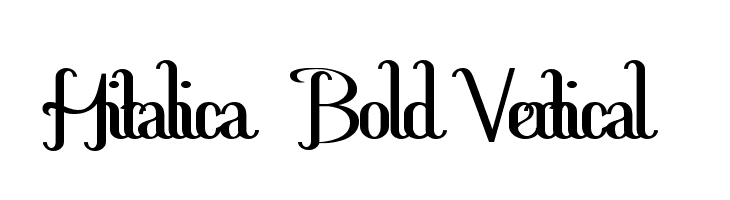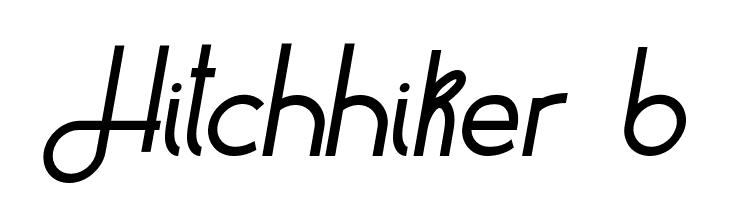
A modern-retro font with playful uppercase and bold, rounded lowercase letters.
A delicate, handwritten font with a whimsical and flowing style.
A bold, hand-drawn font with a playful and dynamic style.
An elegant, flowing script font with smooth, cursive strokes.
A bold, angular font with a modern and edgy style.
A playful, casual handwritten font with smooth, flowing lines.